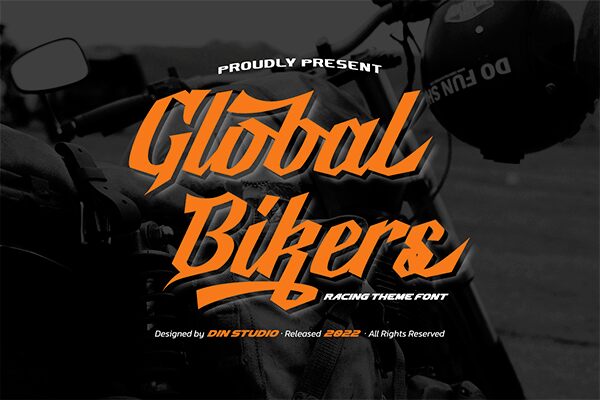
Global Bikers font by Din Studio is a brush script typeface defined by expressive flow and artistic flair. With its energetic feel and modern edge, this font combines casual charm with sophistication allowing for individual expression and total uniqueness. When you need to visually communicate with style, everything about this beautiful free calligraphy font speaks quality and originality.
Abide logo, blog title, poster quotes, apparel design (t-shirts & other clothes), greeting cards, printed invitations (wedding), posters/flyers/banners advertising special events/branding projects are some ways in which you can engage Global Bikers within your design creations.